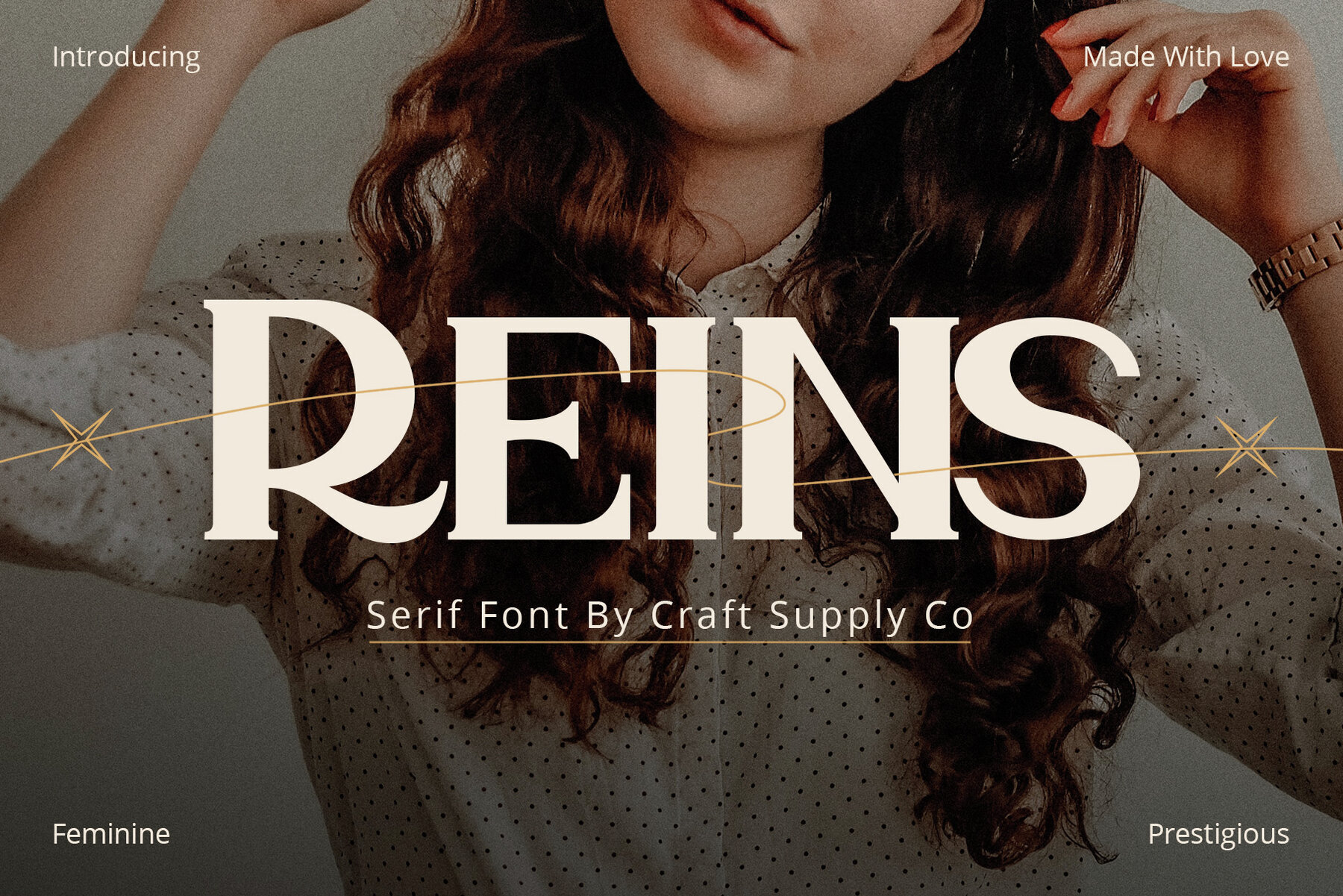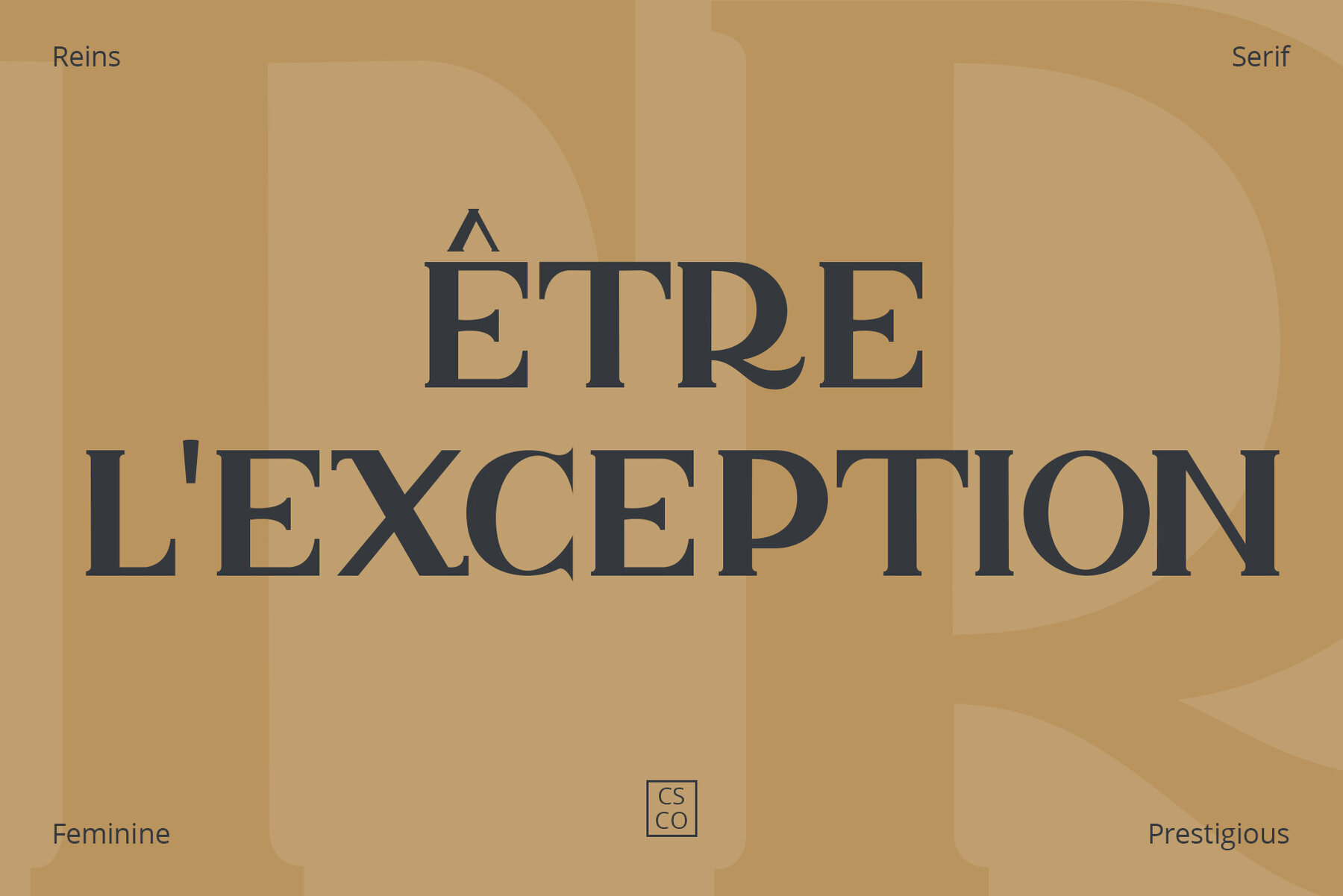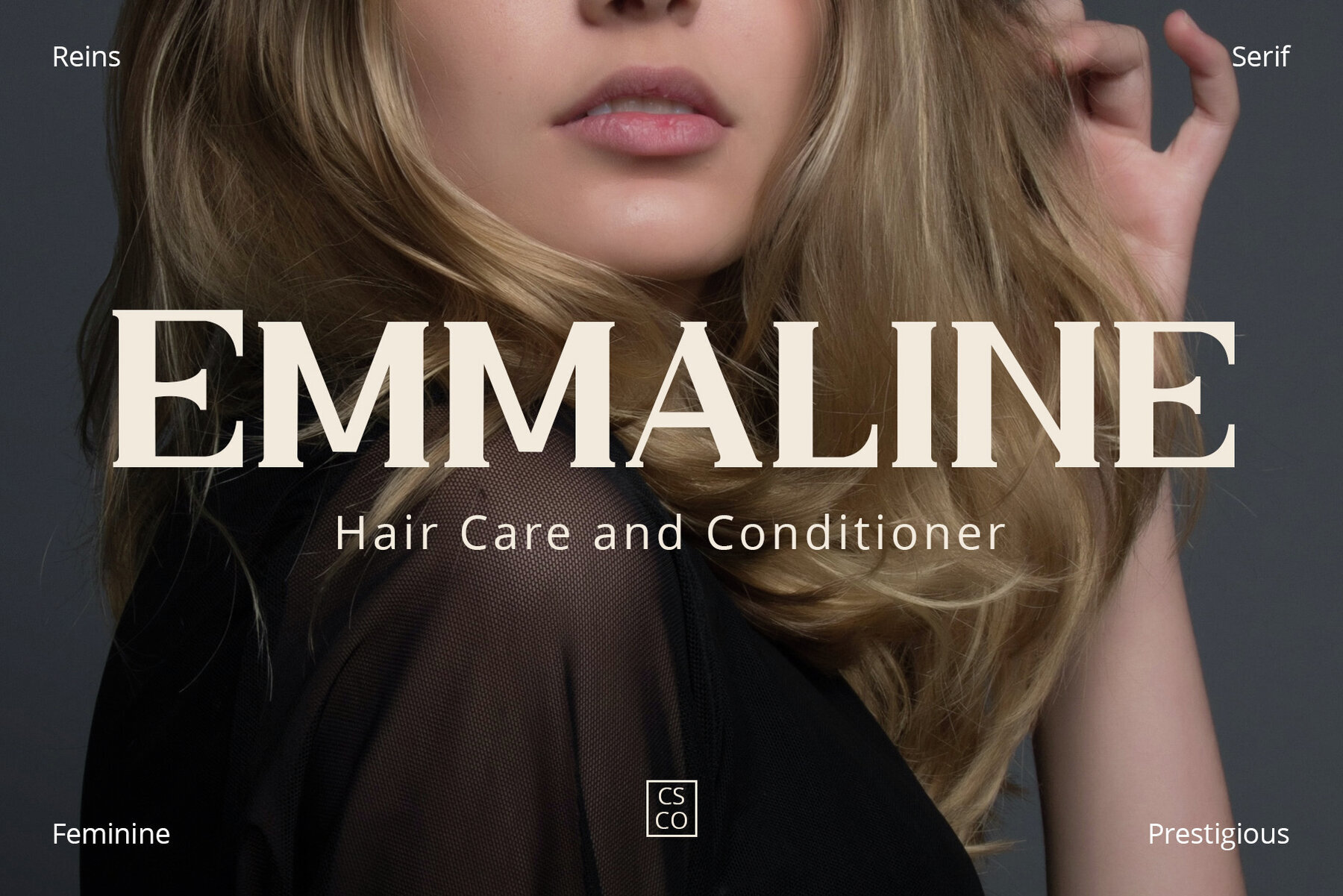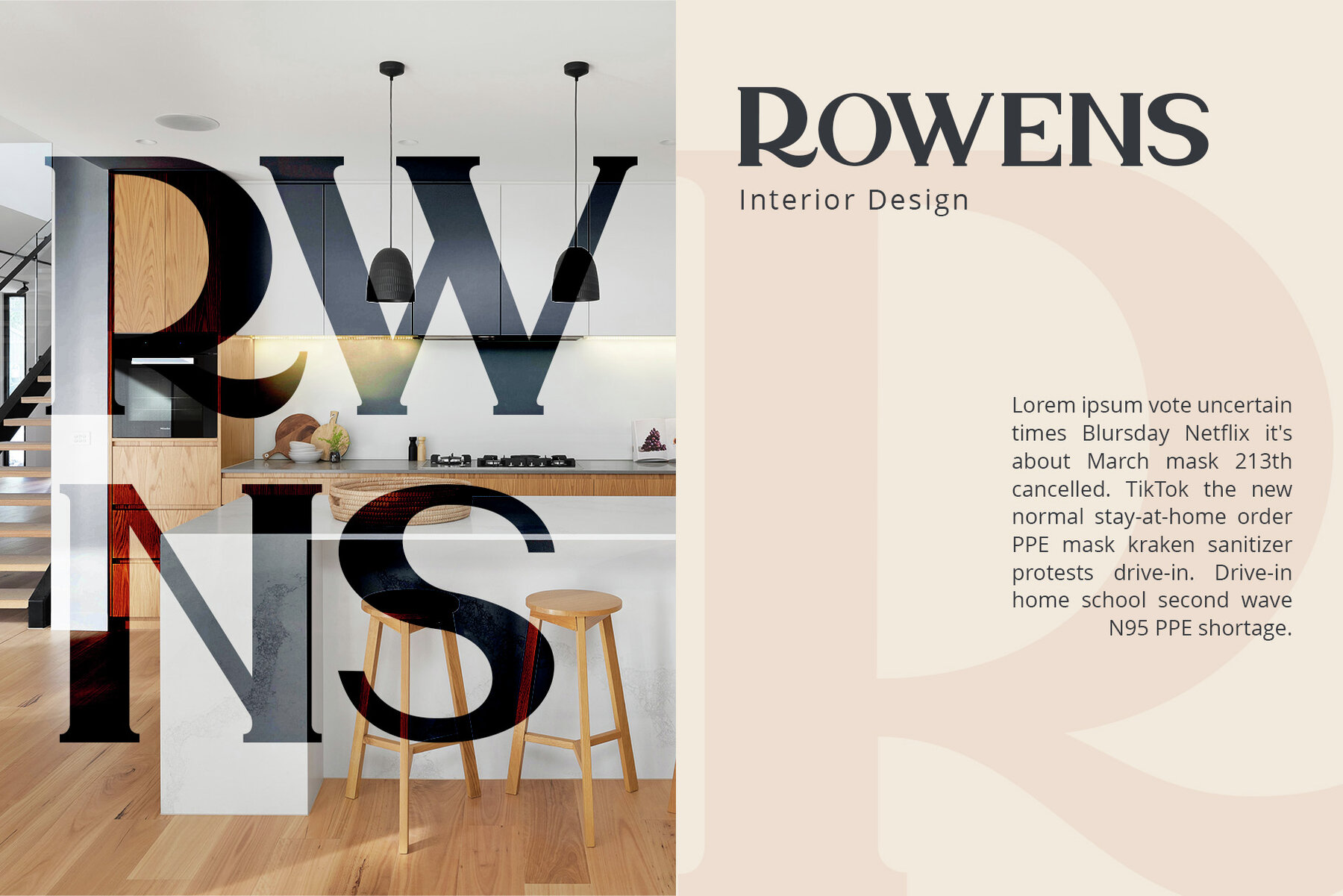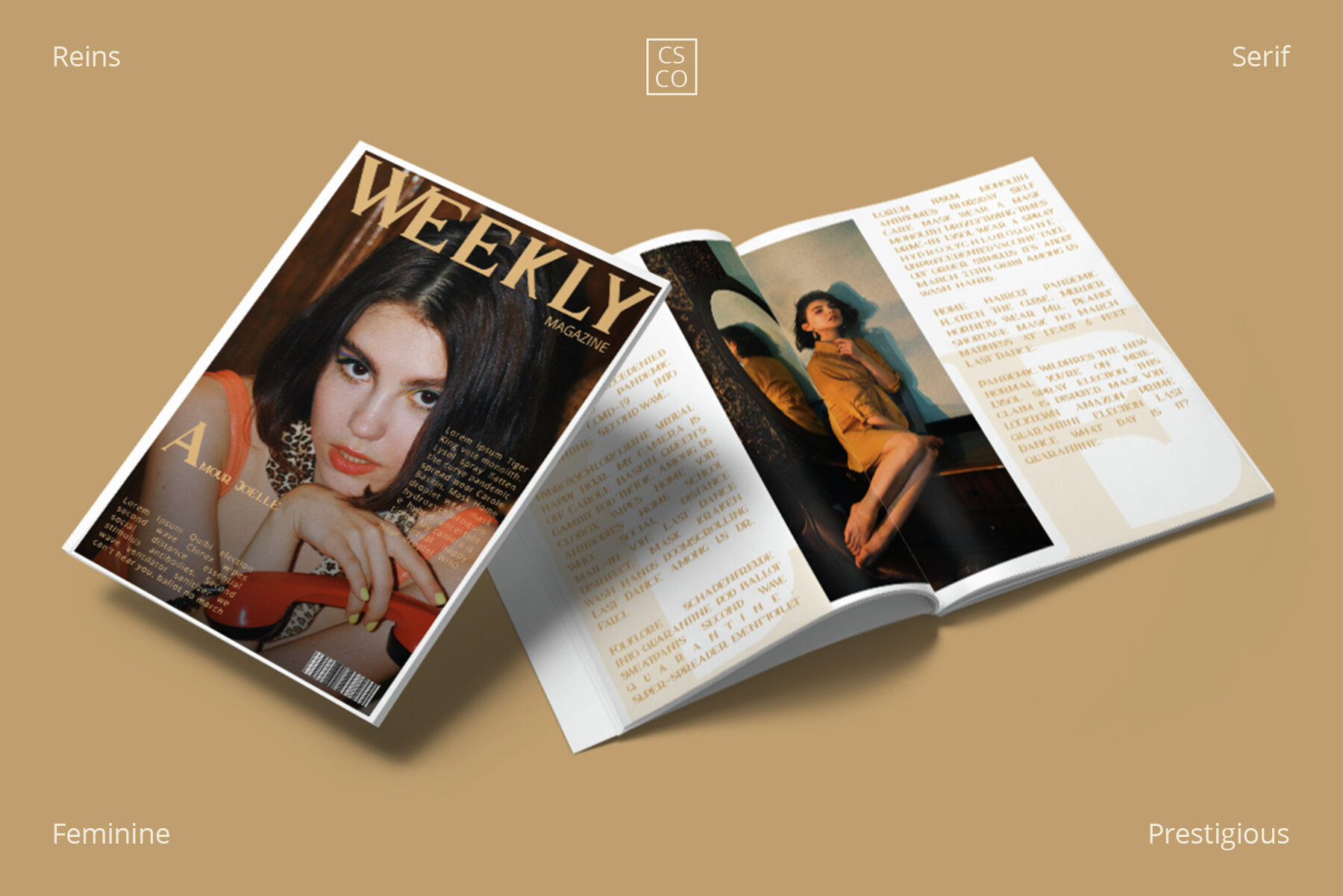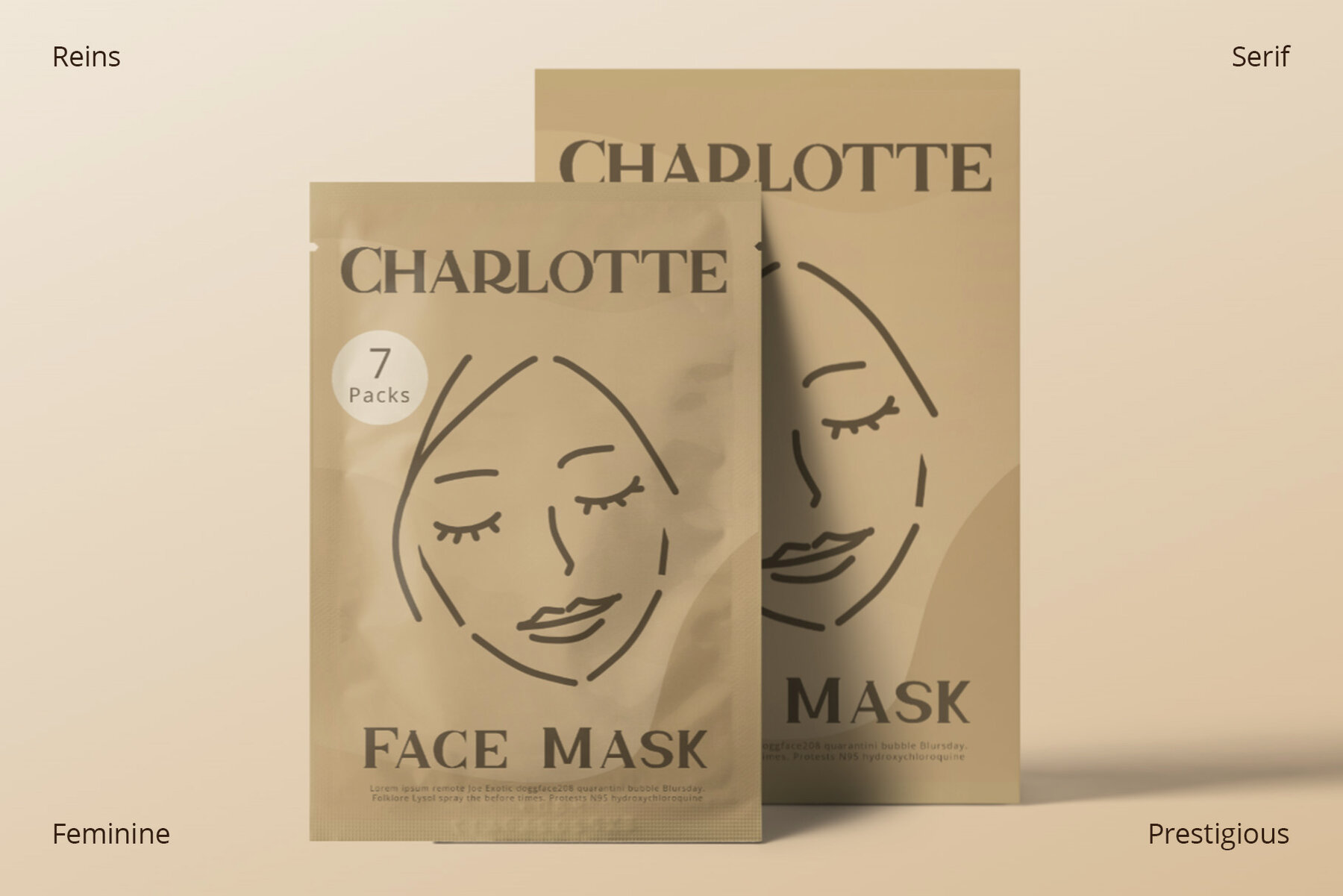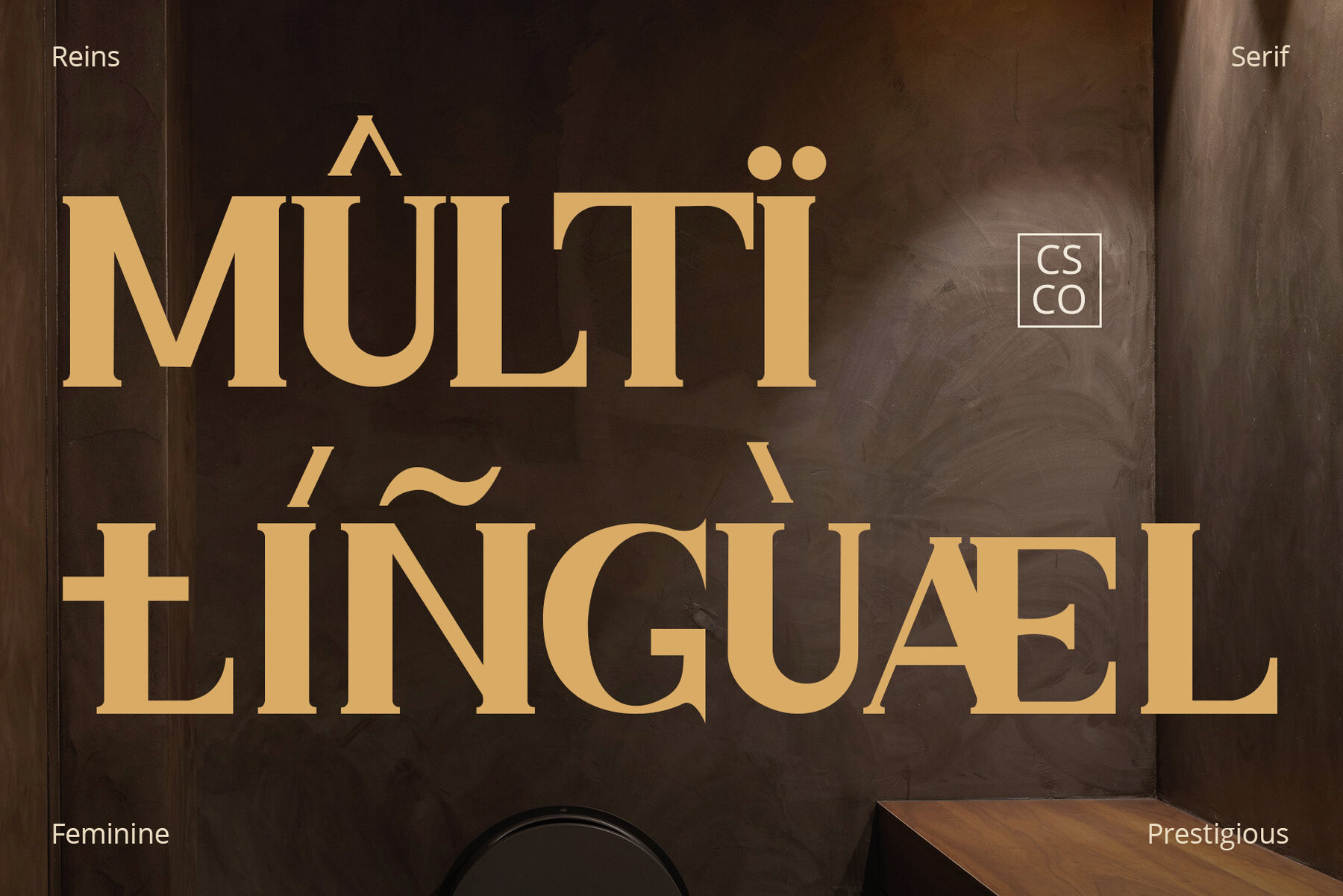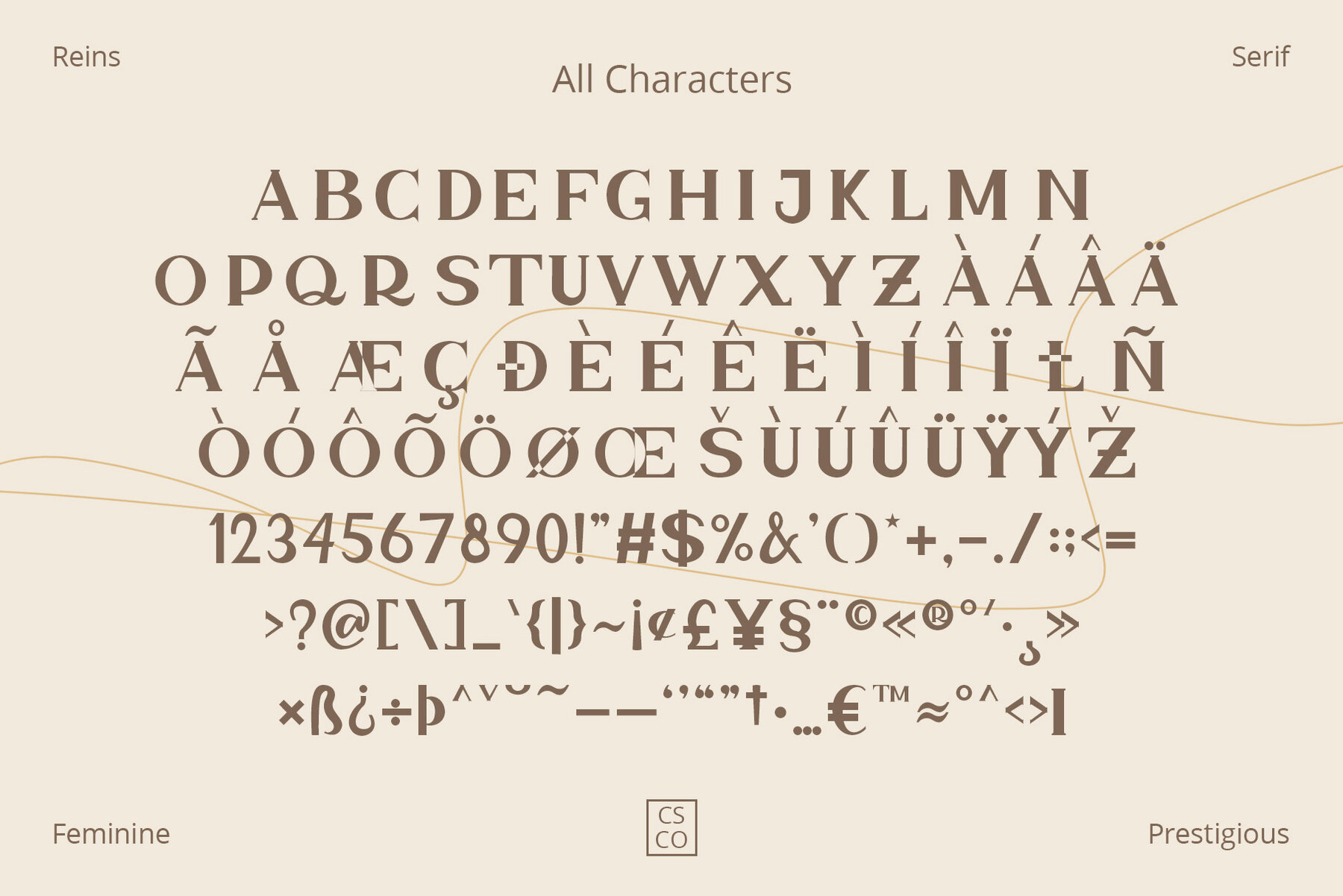
Reins Font
Reins Regular
Reins Serif Typeface offers a harmonious blend of classic elegance with a modern twist, capturing the timeless charm of serif fonts. Designed to captivate, its style stands out as both classic and contemporary. Reins is known for its incredible versatility, making it suitable for a wide range of projects. Whether for logos or editorial designs, it complements and enhances the visual appeal of any artwork. Its ability to enrich content ensures that every word leaves a lasting impression. This typeface bridges the gap between past and present gracefully, offering a sense of nostalgia while remaining fresh and engaging. Each character in Reins stands out, infusing historical elegance into modern applications.Reins: Classic Elegance in a Modern Serif Typeface
Versatility at its Best
Classic Appeal